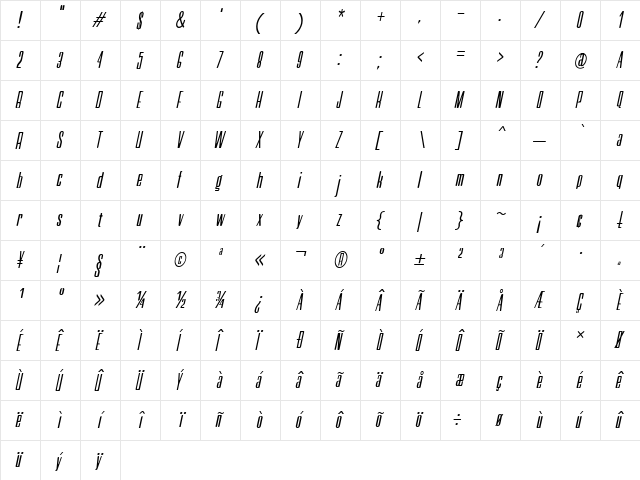
Neretta Italic Regular
| Foundry | Iza W |
| Designer | Iza W |
Design Context for Neretta Italic Typeface
Neretta Italic takes a measured approach to typography — its balanced proportions and neutral character make it a reliable workhorse for both digital and print work. The dynamic lean of this cut emphasises speed and emphasis in any layout.